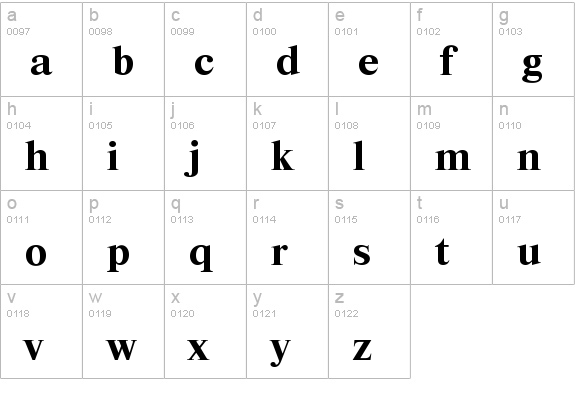
Riccione-DemiBold is a sub-bold, structured variant in the Riccione typeface family \xE2\x80\x94 well suited to sub-headlines and emphasised passages.
Riccione-DemiBold font is a stunning typeface that exudes elegance and sophistication. With its bold and confident strokes, this font commands attention and makes a powerful statement. It is perfect for creating eye-catching headlines, titles, and logos that demand to be noticed. The Riccione-DemiBold font combines a modern aesthetic with classic design elements, resulting in a versatile and timeless typeface. Its clean lines and balanced proportions make it equally suitable for both print and digital projects. One of the standout features of Riccione-DemiBold font is its versatility. It can effortlessly adapt to various design styles, whether it be for a sleek and minimalistic look or a bold and expressive design. This allows designers to explore endless possibilities and create visually captivating compositions. What sets Riccione-DemiBold font apart from others is that it is available for free. Yes, you read that right! This incredible font can be freely downloaded at FontsMarket.com. This means that designers no longer have to worry about breaking the bank to access high-quality fonts. With Riccione-DemiBold, creativity knows no limits, as it is now accessible to everyone. Whether you are a professional designer or a creative enthusiast, Riccione-DemiBold font is a must-have in your font library. Its bold and distinctive style will elevate any design project and leave a lasting impression on your audience. So don't miss out on the opportunity to freely download this incredible font and unleash your creativity today.